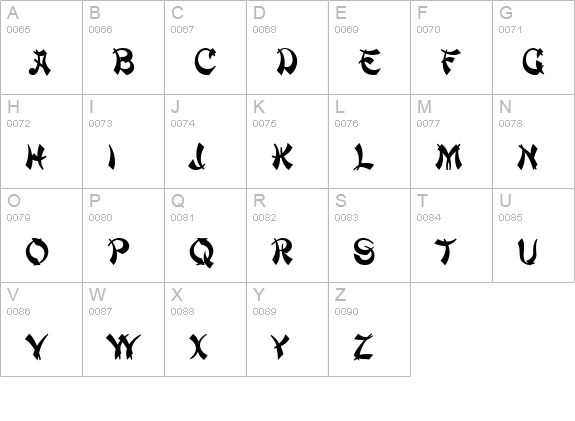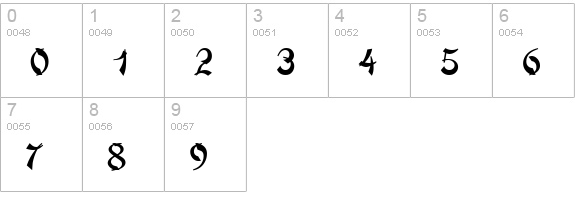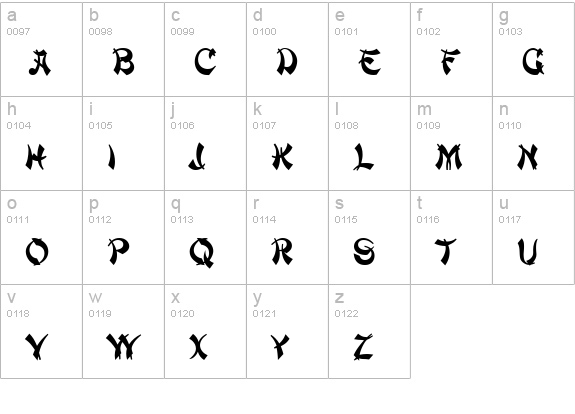
MandarinD Font Details
MandarinD font is a stunningly beautiful typeface that perfectly captures the essence of elegance and sophistication. With its intricate strokes and unique design, this font is sure to make any project stand out from the crowd. But what makes MandarinD font even more amazing is that it is completely free! Yes, you read that right. This incredible font is freely available to download at FontsMarket.com. Whether you're a graphic designer looking to add a touch of class to your creations or a writer in need of a font that exudes professionalism, MandarinD font is the perfect choice. Its graceful curves and delicate details will instantly captivate your audience and leave a lasting impression. Imagine using MandarinD font for your next logo design or branding project. Its timeless appeal will elevate your brand to new heights, making it unforgettable in the eyes of your customers. And the best part? You don't have to break the bank to get your hands on MandarinD font. With its free availability at FontsMarket.com, you can download and start using this remarkable font right away. So why wait? Embrace the beauty and versatility of MandarinD font today and let your creativity soar. Download it for free at FontsMarket.com and unlock a world of possibilities for your designs.